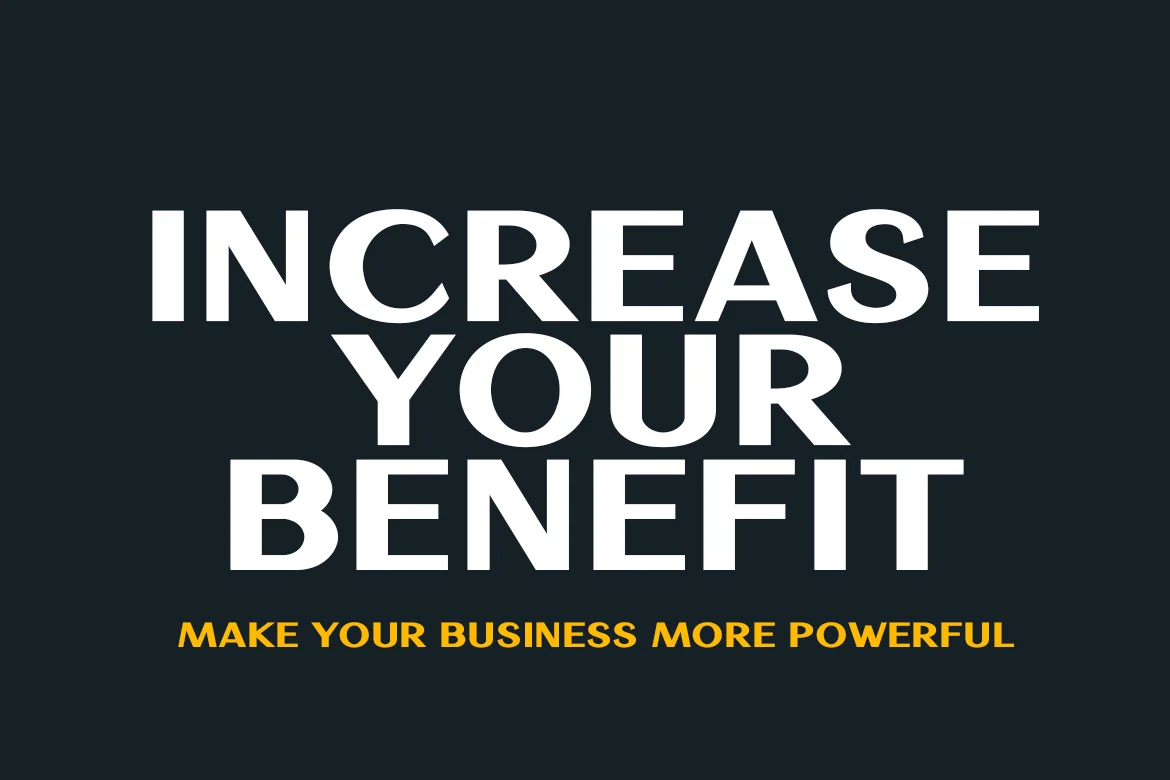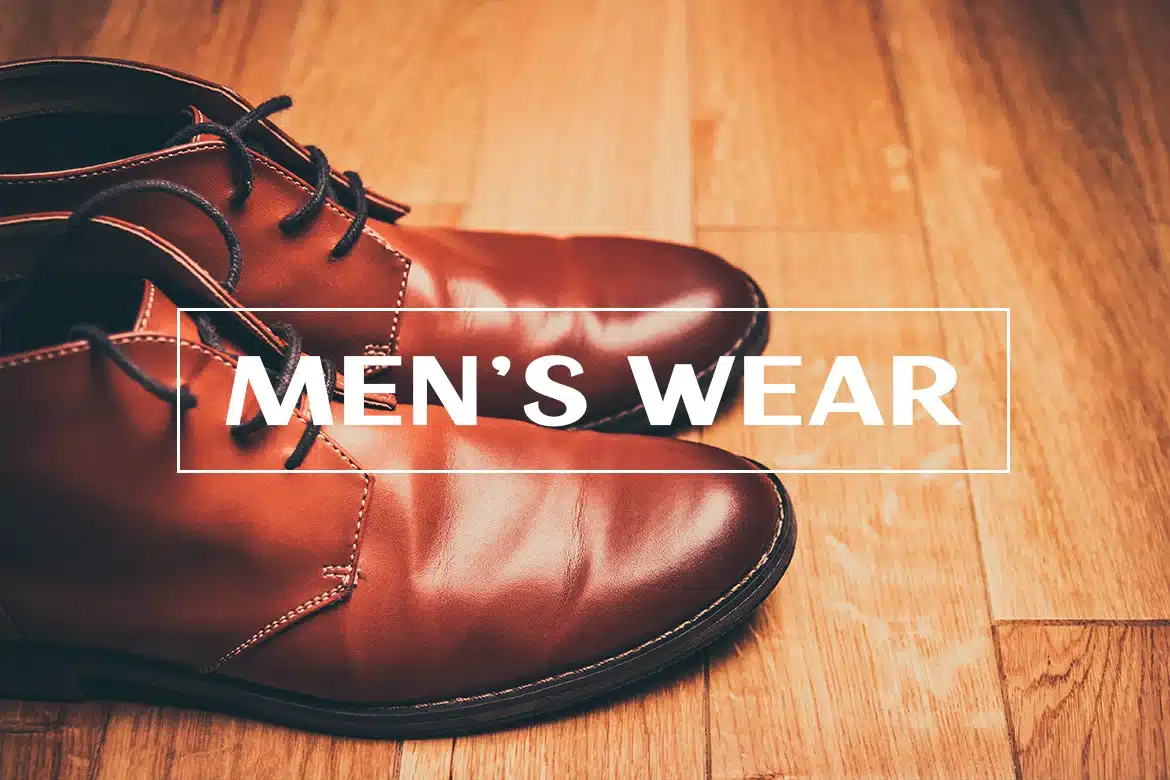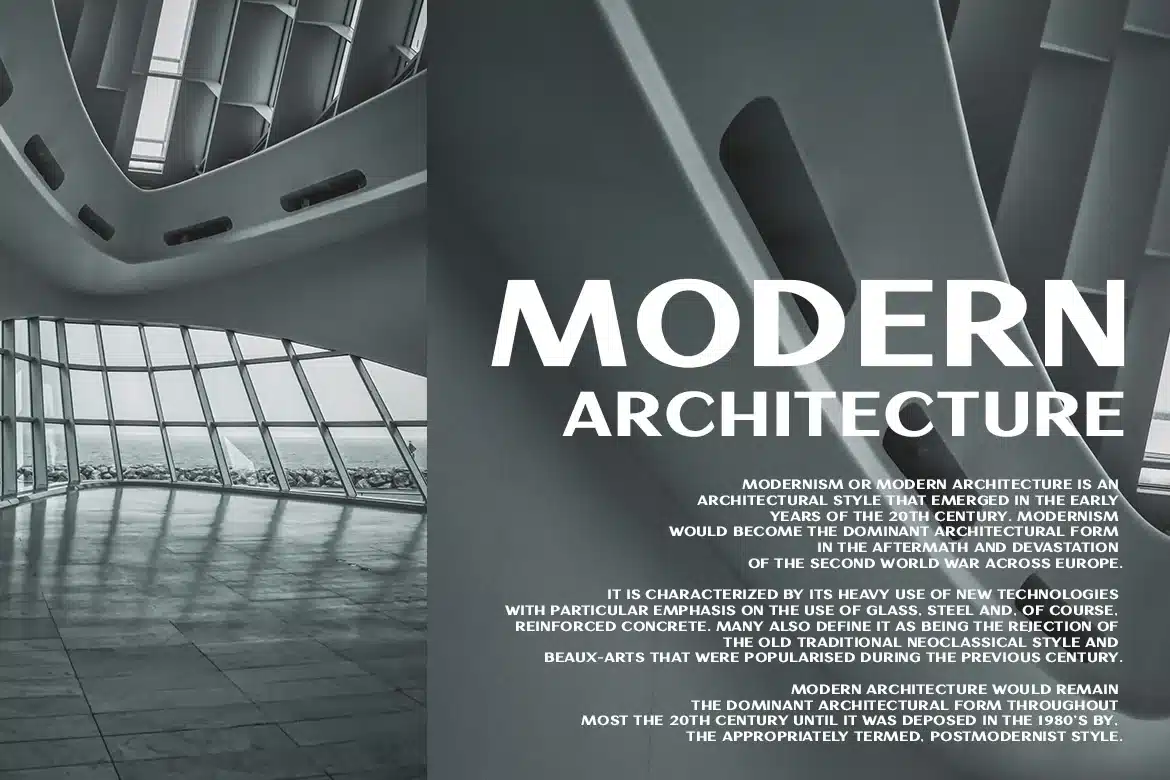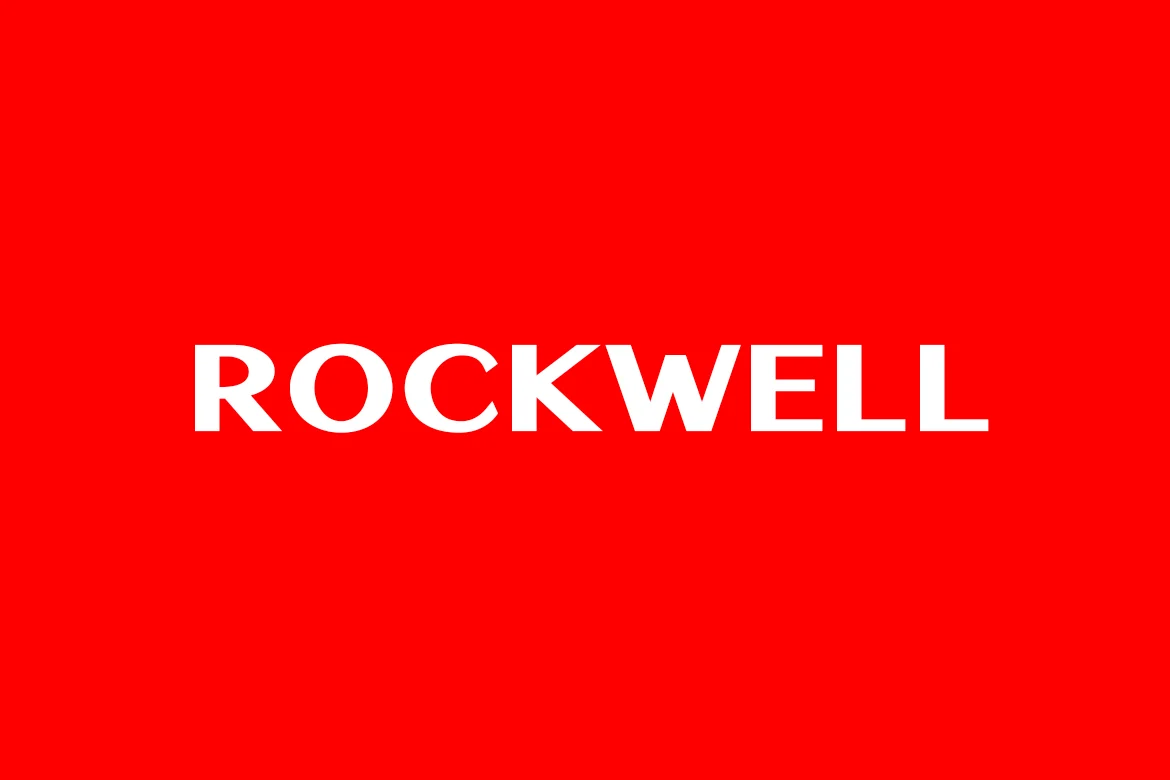
Element – Elegant Business Font
Element is elegant sans font. Perfect for magazine, cover, poster, branding, or advertisement. Almond is modern and strong. Perfect choose for your projects